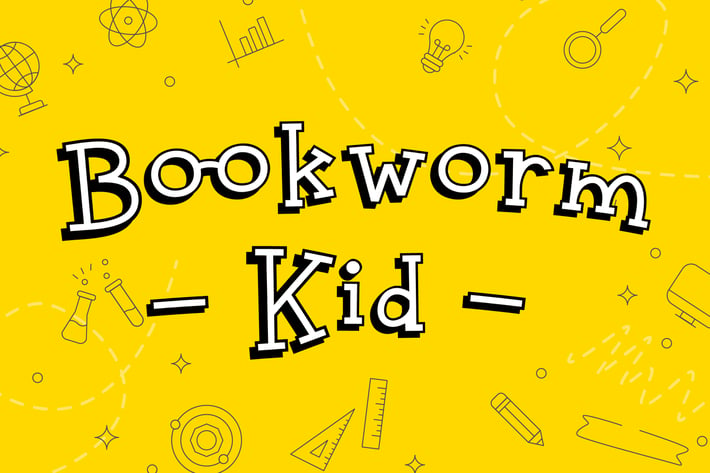
Bookworm Kid Fun Display Font
Bookworm Kid Display Font
Bookworm Kid is a cute and fun display font. It features a unique style and will add a friendly feel to your upcoming projects. Get inspired by its authentic feel and use it to create fun book cover, social media post, beautiful poster, cheerful greeting cards and many more!